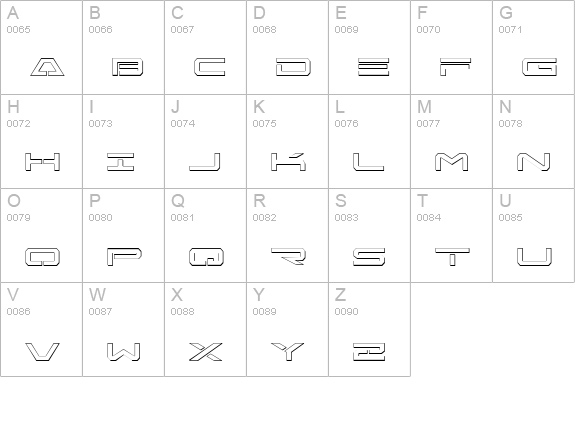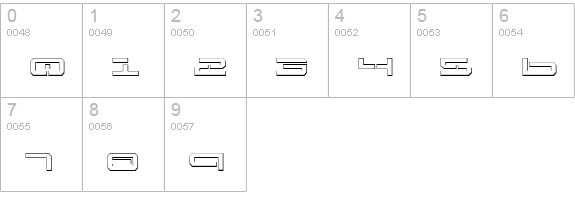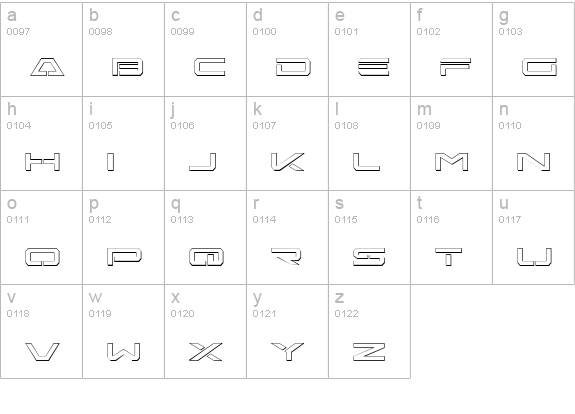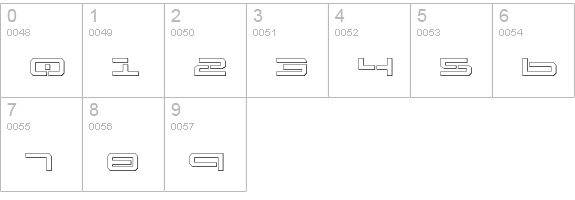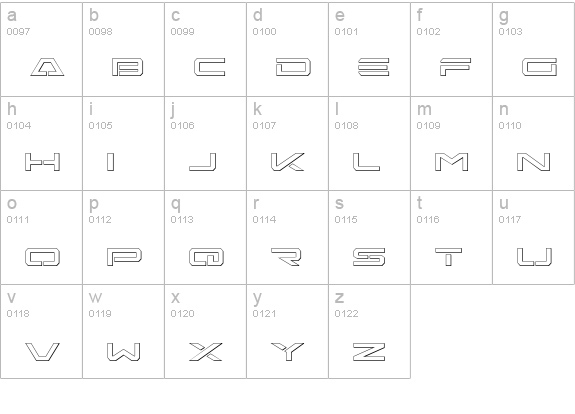
Free Agent 3D Font Details
Introducing the captivating Free Agent 3D font, a stunning display typeface that exudes modernity and sophistication. This unique font features intricate 3D effects that add depth and dimension to any design project. The Free Agent 3D font is perfect for creating eye-catching headlines, logos, posters, and more. What sets the Free Agent 3D font apart is its versatility and dynamic appeal. Whether you're working on a futuristic sci-fi project or a sleek corporate design, this font will bring your ideas to life with its bold and impactful presence. The clean lines and sharp edges of the Free Agent 3D font make it a standout choice for any creative endeavor. Best of all, the Free Agent 3D font is freely available to download at FontsMarket.com. Now you can add this impressive font to your collection without any cost, making it a valuable asset for both personal and commercial use. Don't miss out on the opportunity to elevate your designs with the striking Free Agent 3D font today!